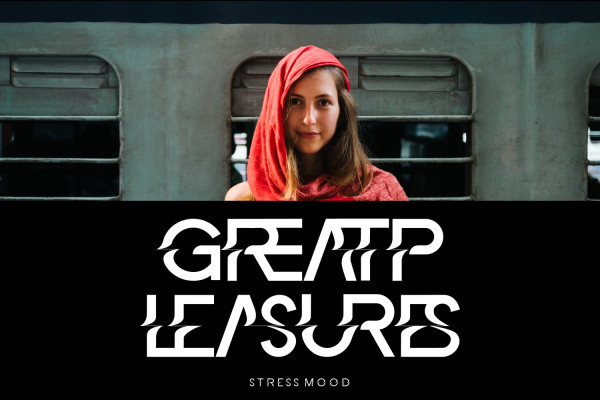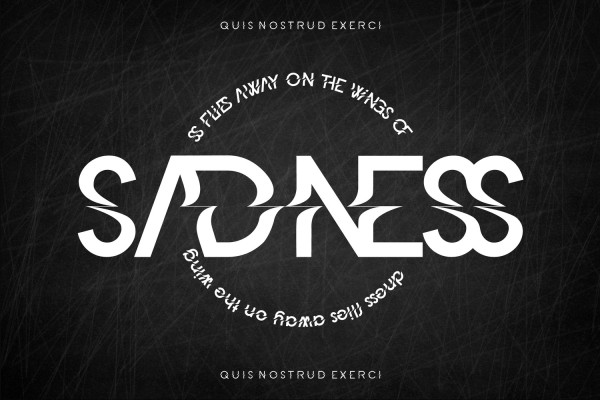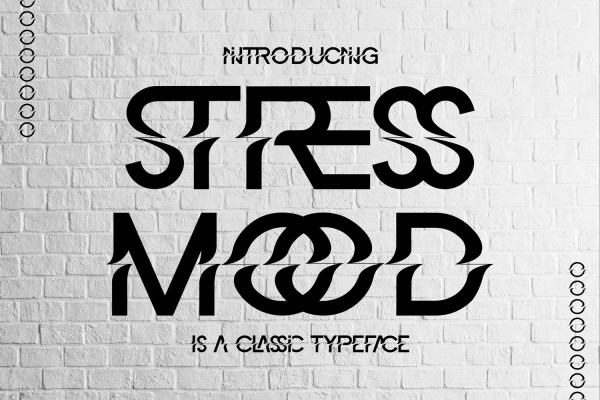
Stress Mood Font
STRESS MOOD FONT is a simple and modern sans serif font. Modern Sans Serif font that feels beautiful classy, elegant, and modern. This font is ideally suited for a wide variety of projects, such as signature, stationery, logo, wedding, typography quotes, magazine or book covers, website headers, clothing, branding, packaging design, and more. Also, fashion-related branding or editorial design displays both masculine and feminine qualities.
Stress Mood was built with OpenType features and includes 100 ligatures, alternate, numbers, punctuation, and it also supports other languages.
AC AD AL AN AR AS AT AU AV BE CA CE CH CO CT DE DI EA EC ED EE EL EM EN EP ER ES ET FE FO FR GE HA HE HI HO IE IC IL IN IO IR IS IT JU KE LA LE LI LL LO LY MA ME MI NC ND NE NG NO NT NS OC OF OM ON OO OP OR OT OU OW PA PR RA RD RE RI RO RS RT SE SH SI SO SS ST TA TE TH TI TO TR TT UM UN UR VE WI WO